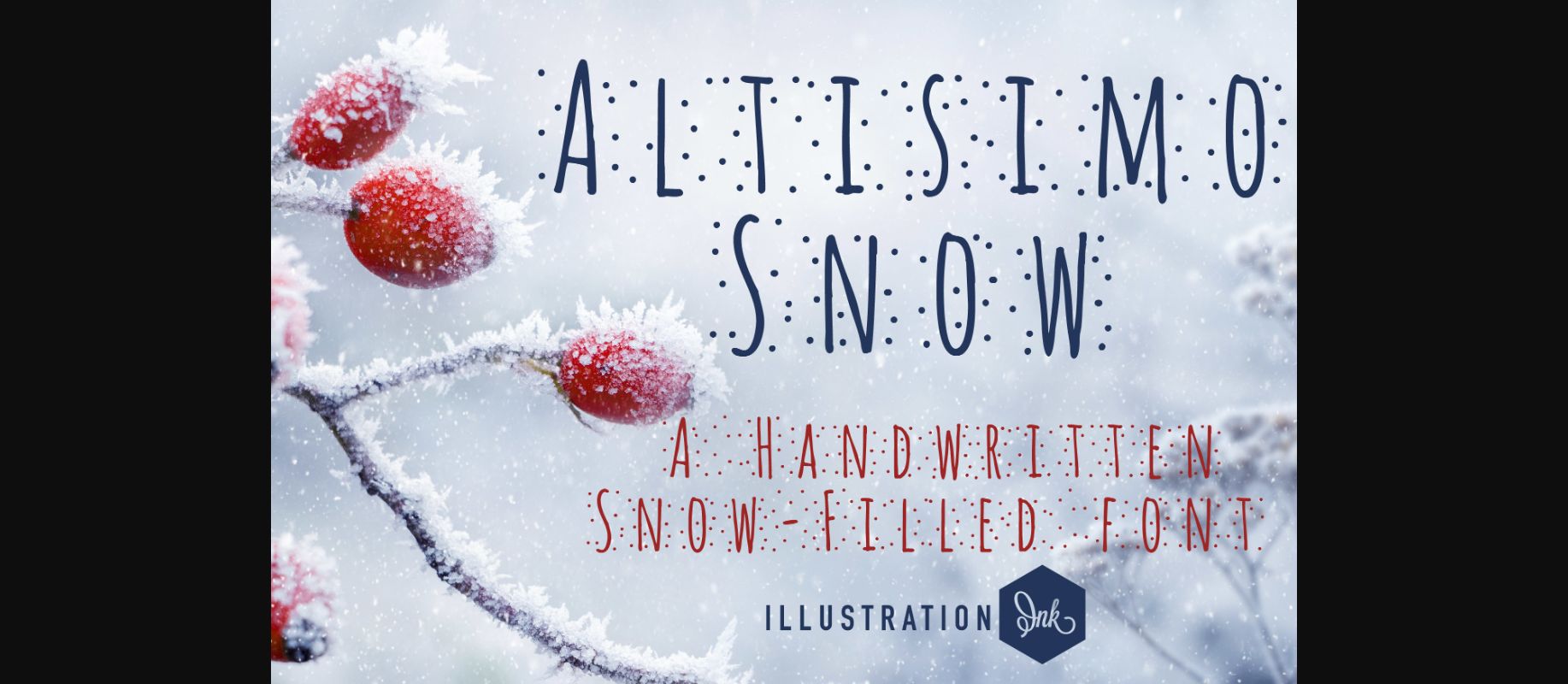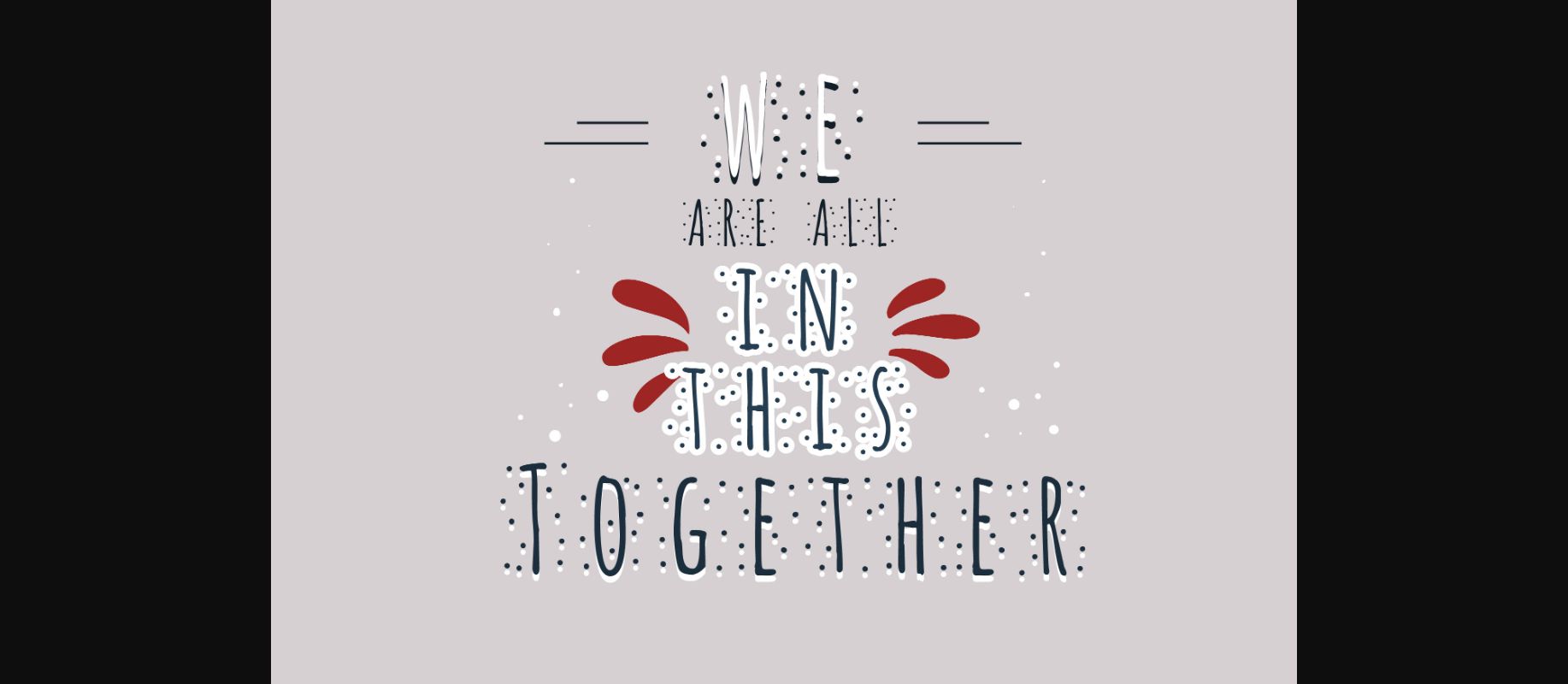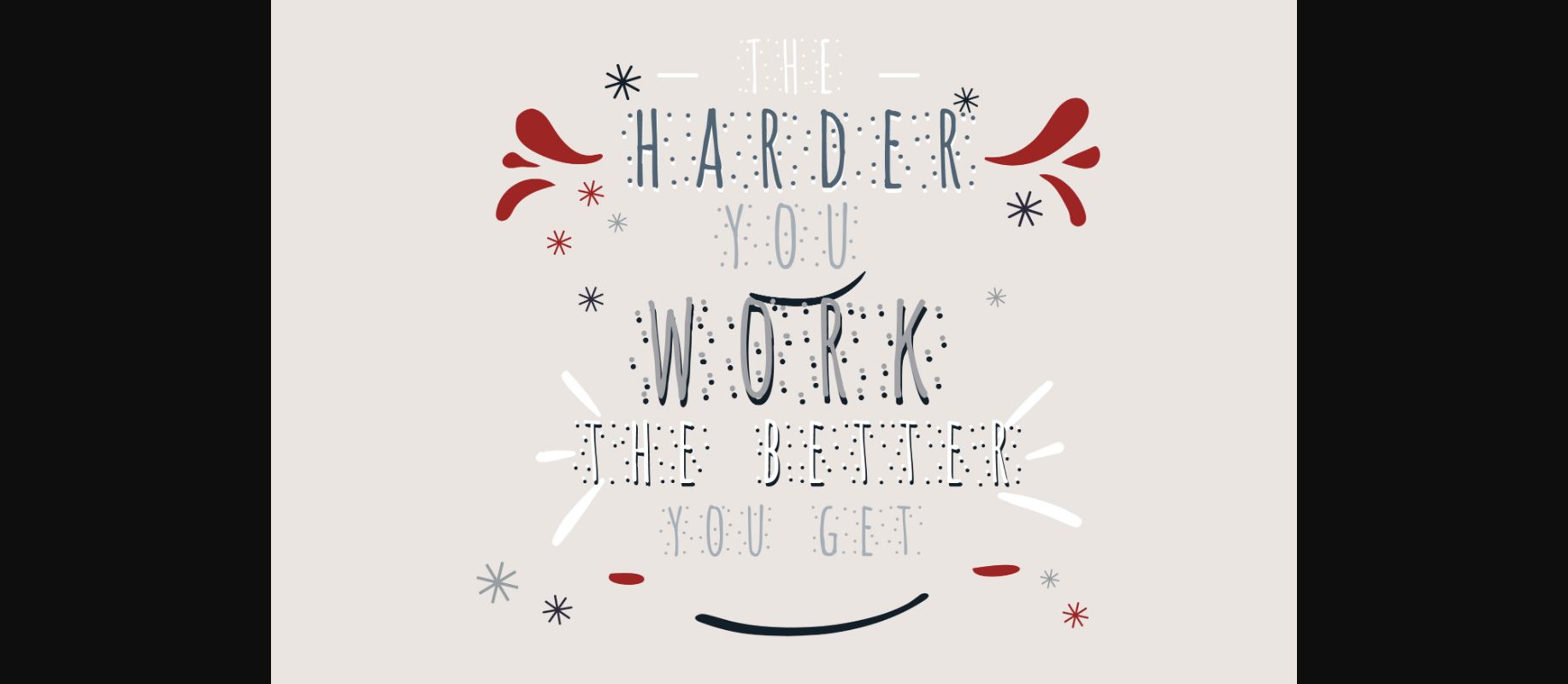
About Altisimo Snow Font
Altisimo Snow is a simple and cute handwritten decorative font. A friendly hand-lettered typeface with charm and style! This font is perfect for quotes, headings, logos, branding, merchandise, and websites.